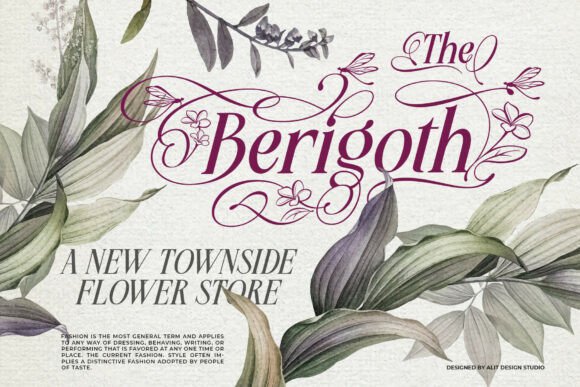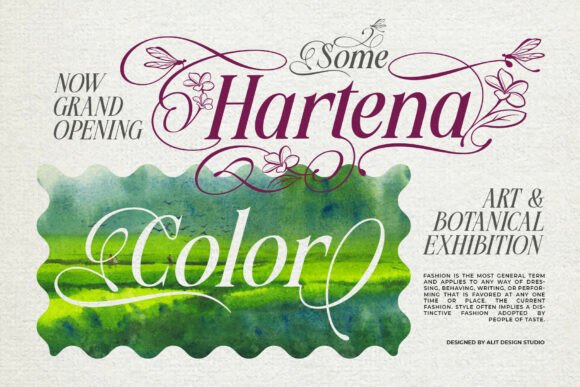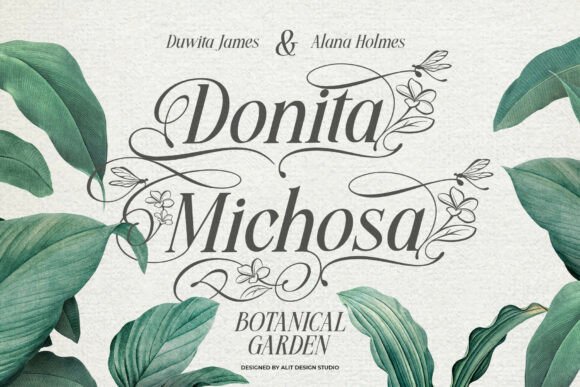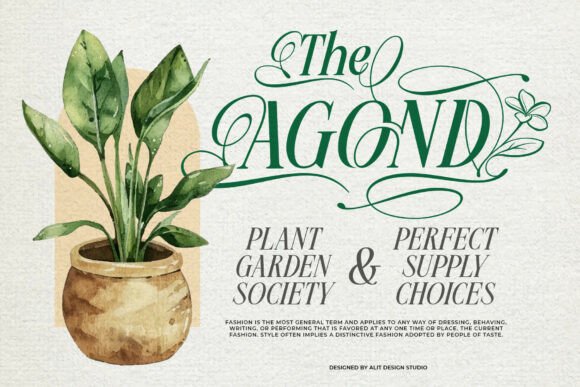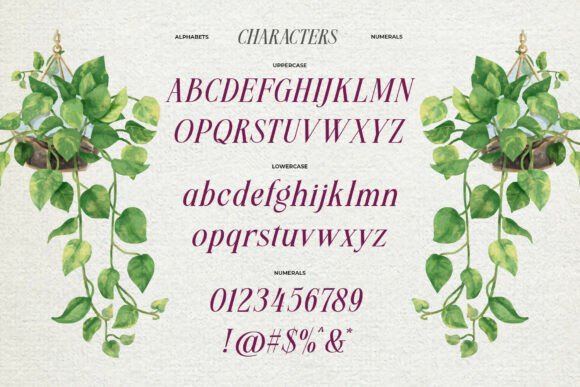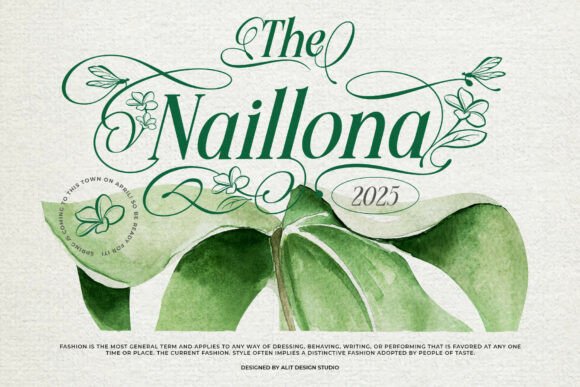
Introduction to Meillona Font
As a designer, there’s nothing quite like the thrill of bringing a creative project to life. You’ve poured over every detail, carefully crafting a vision that reflects your unique style and perspective. But what sets your design apart from the rest? For many, it’s the choice of font – the one that elevates the entire composition and speaks to the essence of your message. Enter Meillona Font, a stunning new addition to the world of typography that’s poised to become your go-to design resource.
With its delicate, slanted serif construction and flowing letterforms, Meillona Font is a masterclass in elegant, expressive design. This beautiful font is thoughtfully inspired by the natural world, making it the perfect choice for anyone looking to add a touch of sophistication and whimsy to their creative project. And with its high-quality design and extensive feature set, including over 757 glyphs and stunning illustrated swashes, you’ll be spoiled for choice when it comes to creating truly bespoke typography.
Key Features of Meillona Font
- High-quality, professional font suitable for various creative projects, including logos, posters, and branding materials.
- Meillona Font offers a unique, modern design that can be used as a design resource for creating visually appealing and engaging content.
- Meillona Font is designed to be highly legible, making it an ideal choice for use in various design contexts, from print to digital media.
Honest Review: Meillona Font
One of the first things I noticed about the Meillona Font is its high quality. The font is clean, modern, and has a unique aesthetic that sets it apart from other fonts in its class. The transparent background option also gives designers a lot of flexibility when it comes to designing backgrounds and overlays.
Here are some of the things that work well with the Meillona Font:
- ✨ Unique and modern design aesthetic
- ✨ High quality and crisp font
- ✨ Transparent background option for added flexibility
While the Meillona Font is a solid design resource, there are a few limitations to be aware of:
- ⚠️ Limited character set options
Tips for Getting the Most Out of Meillona Font
For optimal results, use Meillona Font in combination with other design resources, such as high-quality images and graphics. Experiment with different font sizes and styles to create visually appealing designs.
Common Use Cases for Meillona Font
Meillona Font is suitable for a wide range of creative projects, including logos, business cards, and marketing materials. Its high quality and versatility make it an ideal choice for designers of all levels.